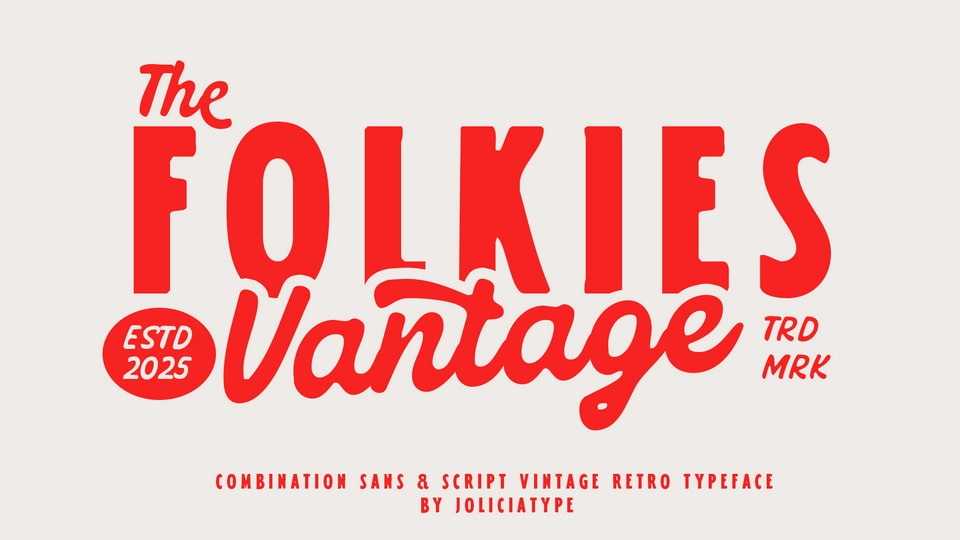
Download Folkies Vantage font, a bold and expressive vintage typeface that combines strong sans serif characters with handcrafted script strokes—capturing the timeless charm of retro signage and artisanal letterforms.